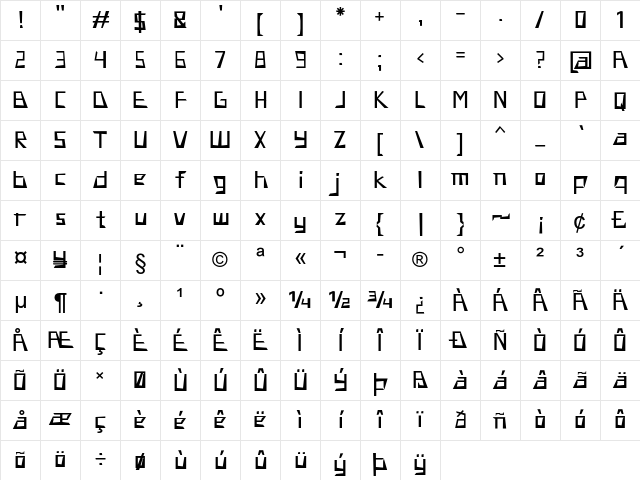
Bransford Regular Free Font
Design Context for Bransford
Bransford is a composed and adaptable typeface that performs quietly and consistently across a wide range of design contexts.